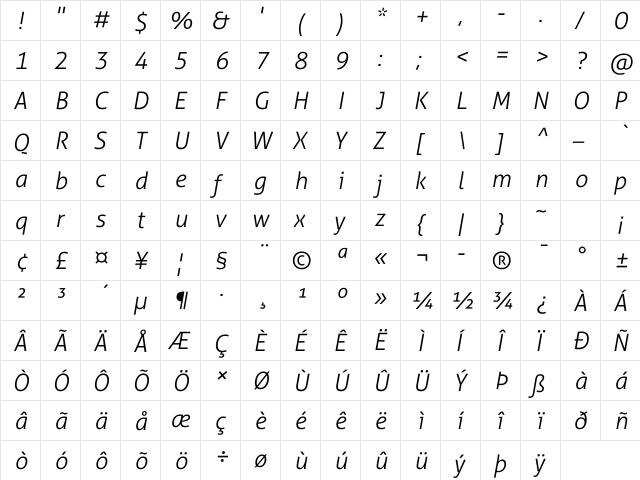
Aller Light Italic
| Foundry | Dalton Maag Ltd |
| Designer | Dalton Maag Ltd |
Design Context for Aller Light Typeface
Aller Light offers clean, dependable letterforms without strong stylistic allegiance, making it a practical choice for designers who need flexibility. The dynamic lean of this cut emphasises speed and emphasis in any layout. The delicate stroke weight brings airiness and refinement to layouts.
Pro Tip: Try Aller Light for annotation and caption copy alongside an upright companion — the contrast in angle creates a dynamic but ordered typographic system.